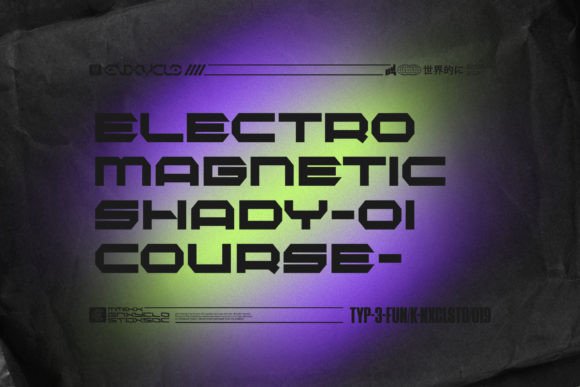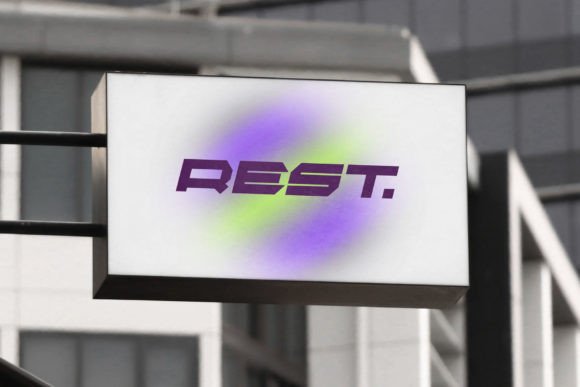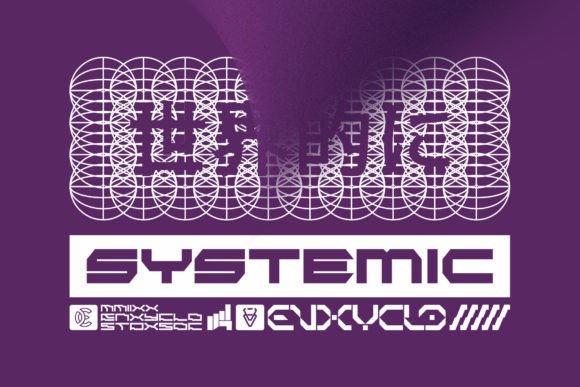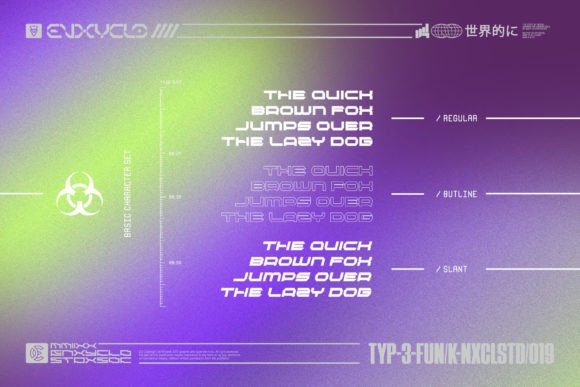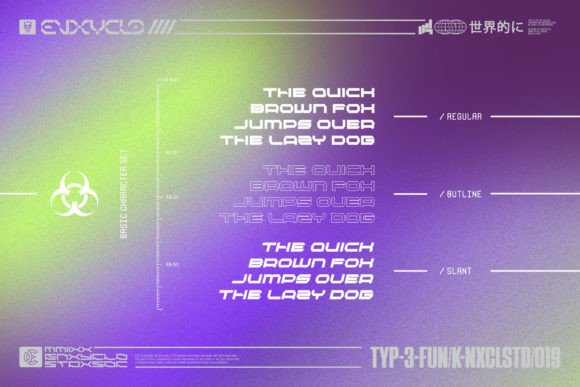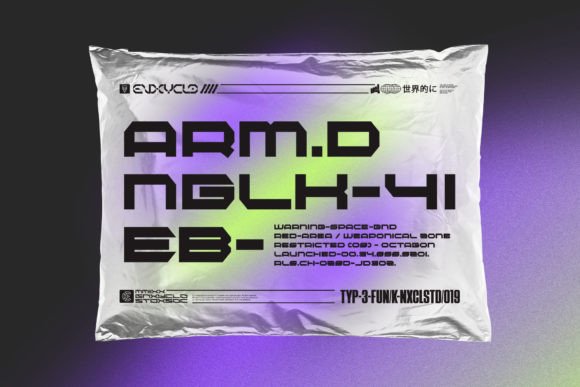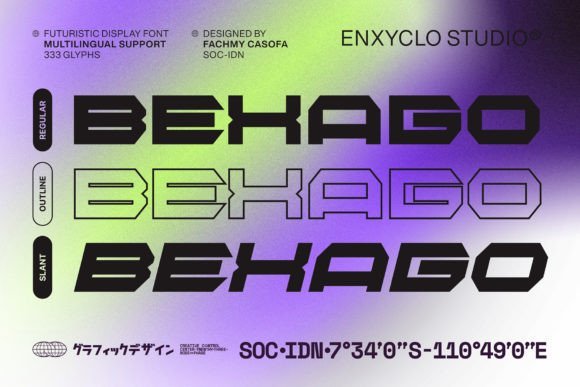
Unlock the Power of Bexago Font: Elevate Your Creative Projects
Imagine you’re brainstorming a new campaign for a sci-fi movie, and you need a font that screams ‘futuristic’ and ‘innovative’. You scroll through your font library, but nothing seems to capture the essence of your vision. That’s when you stumble upon Bexago Font – a game-changing display font designed to transport your audience to a world of tomorrow.
Bexago Font is more than just a typeface; it’s a statement piece that adds an extra layer of depth and meaning to your project. Whether you’re designing a billboard, a magazine spread, or a website, this futuristic display font is the perfect tool to make your vision stand out from the crowd.
As a designer, you understand the importance of selecting the right font to convey your message. Bexago Font is a valuable addition to your toolkit, allowing you to unleash your creativity and push the boundaries of what’s possible.
Bexago Font Key Features
- Font Family: Bexago Font is a sans-serif font family designed for modern and minimalist designs.
- Unique Characteristics: Bexago Font features a clean and geometric design with a subtle rounded edge, making it perfect for digital and print materials.
Bexago Font Review
Overall, I’d say the Bexago font is a decent addition to any designer’s toolkit. Here are the things that really work well for me:
- ✨ The font’s unique blend of modern and vintage elements gives it a distinctive look that’s perfect for creative projects.
- ✨ The font is highly customizable, allowing users to tweak the weight, style, and spacing to suit their needs.
- ✨ The font supports a wide range of languages, making it a great choice for global projects.
However, there are some limitations that might hold you back:
- ⚠️ The font’s complexity can make it difficult to use in certain situations, such as small text sizes or low-resolution displays.
- ⚠️ The font’s weight and style options can be overwhelming for beginners, making it hard to choose the right settings.
Overall, I think the Bexago font is a solid choice for designers who want a unique, high-quality font. While it may have some limitations, the benefits far outweigh the drawbacks. With some practice and experimentation, you can unlock the full potential of this font and create truly stunning designs.
Getting the Most out of Bexago Font
To get the most out of the Bexago font, try the following tips:
– Use the Bexago font in conjunction with other modern sans-serif fonts to create a cohesive design aesthetic.
– Experiment with different font sizes and colors to add visual interest to your design.
– Use the Bexago font in headings and titles to create a clear hierarchy of information.